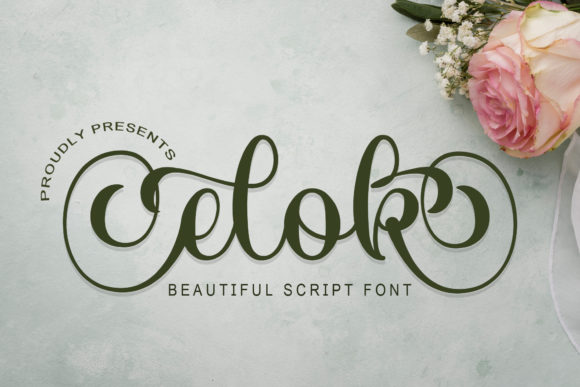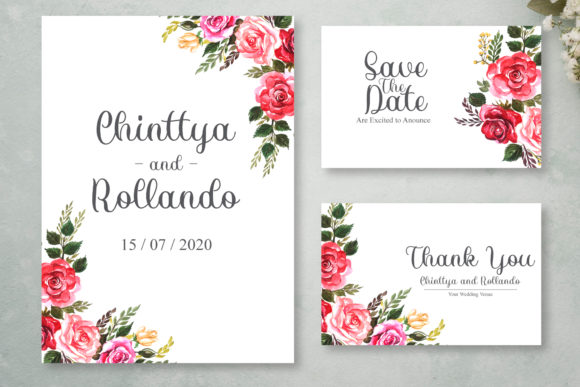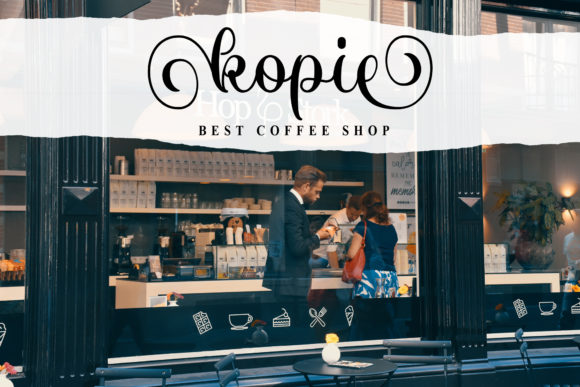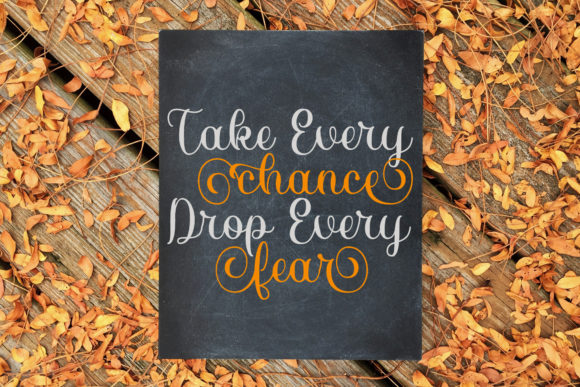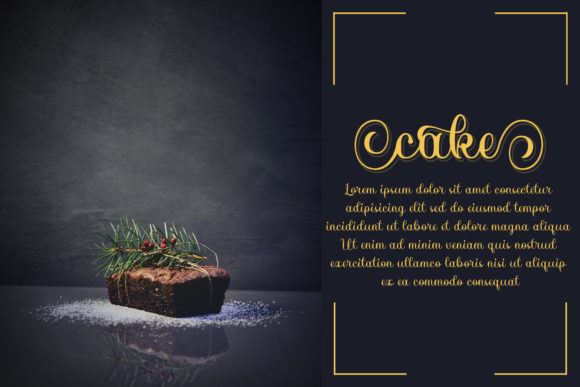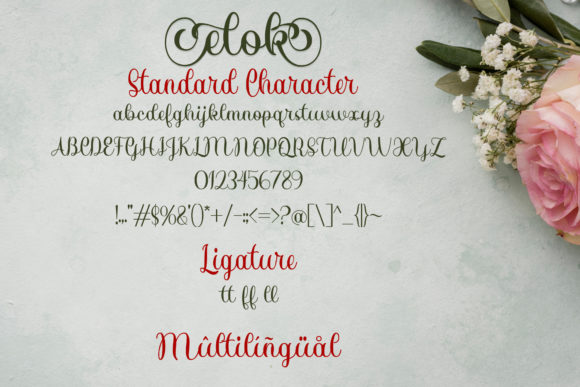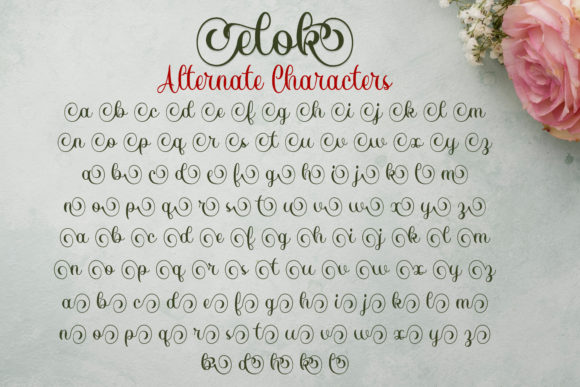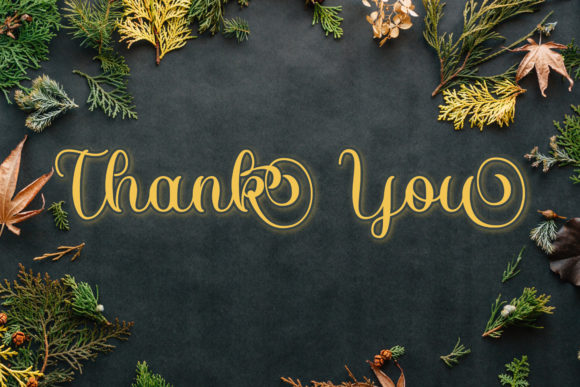
Elok Font
About Elok Font
Elok is a beautiful and stylish script font with an incredibly friendly feel. Whether you’re looking for fonts for Instagram or calligraphy scripts for DIY projects, Elok will turn any creative idea into a true piece of art!